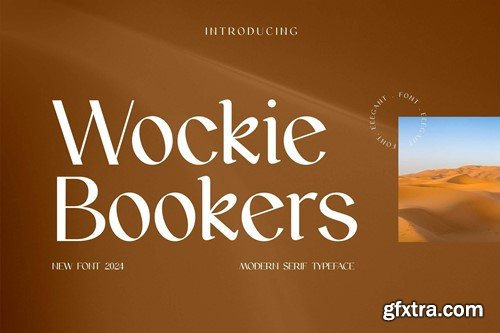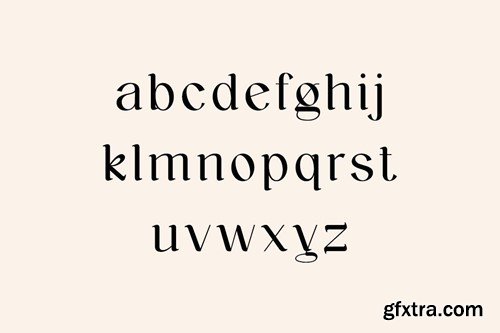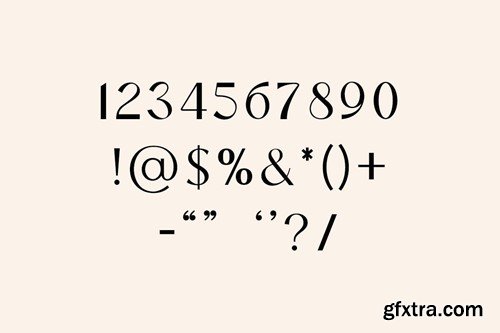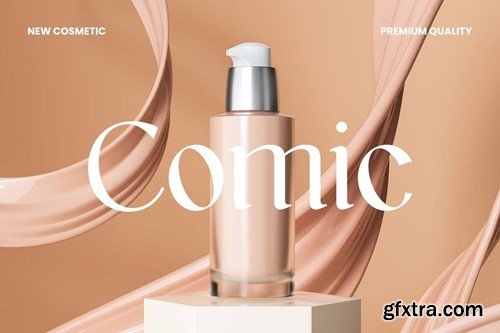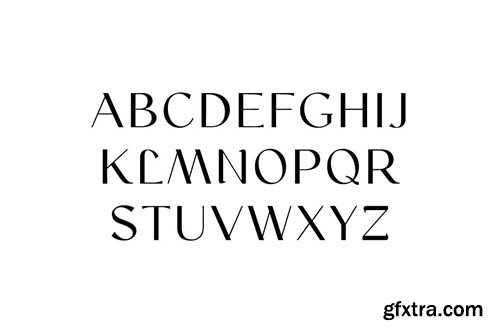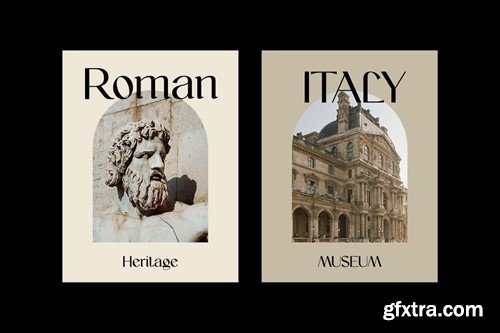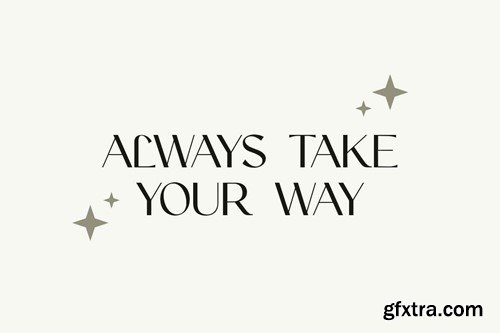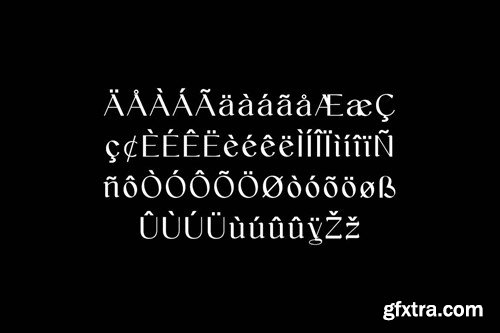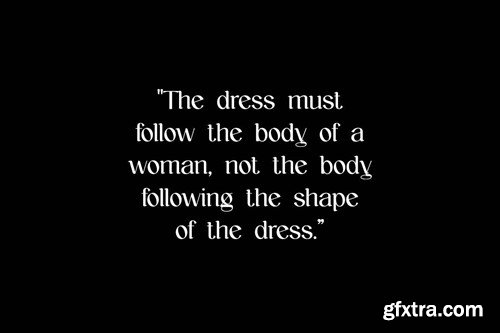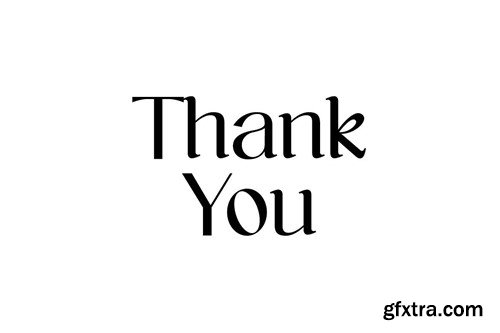
Wockie Bookers Modern Serif Typeface 9U8AFLV
Wockie Bookers Modern Serif Typeface
Introducing our new product the name is Wockie Bookers Modern Serif Typeface. Wockie Bookers Modern Serif Typeface that feels beautiful classy, elegant, and modern. This font is perfectly suited for a wide variety of projects, such as signature, stationery, logo, wedding, typography quotes, magazine or book covers, website headers, branding, packaging design, and more. Also, fashion-related branding or editorial design displays both masculine and feminine qualities.